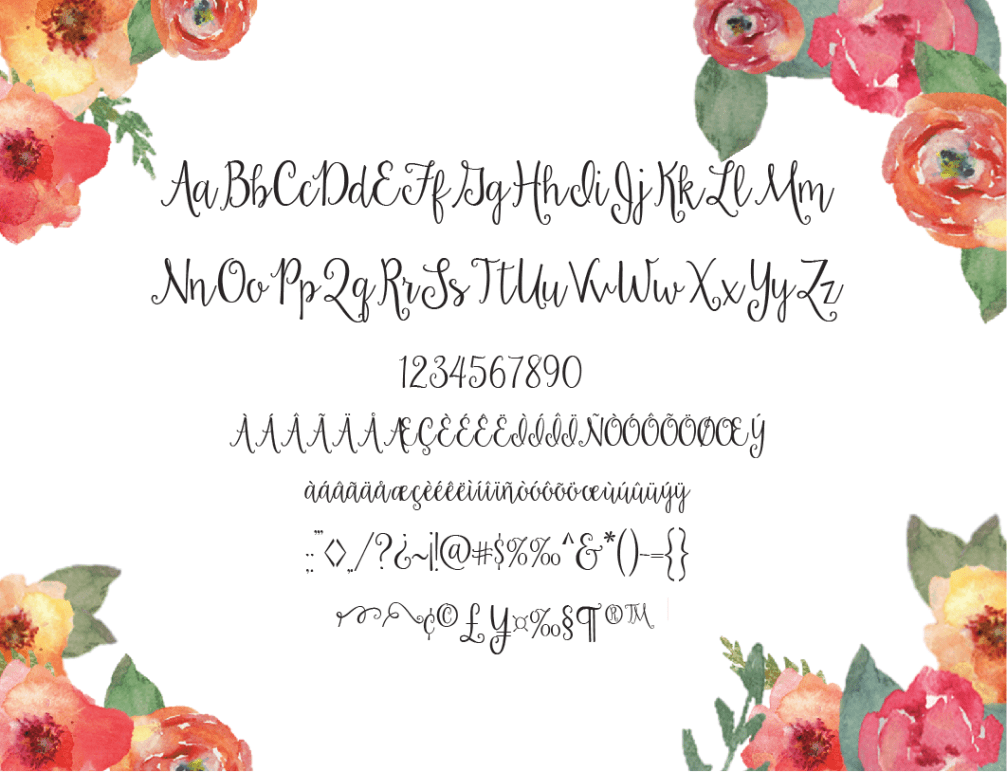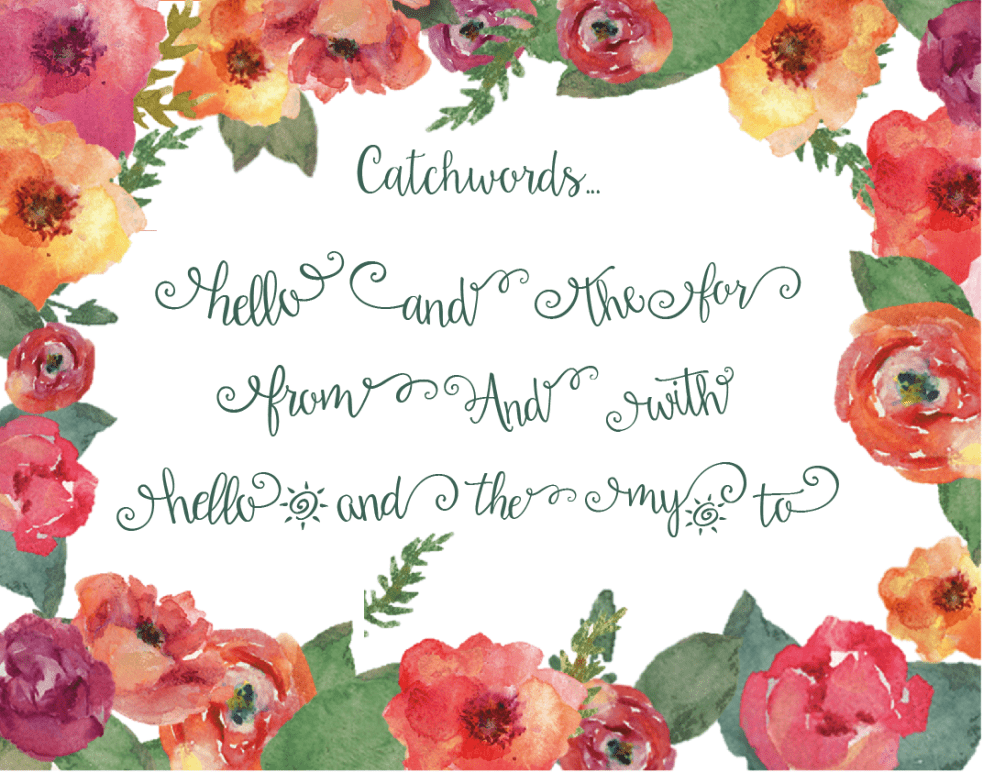
Hello Sunshine
Buy NowHello Sunshine is a new bright and sunny Script. Hand-drawn letters are both elegant and funky. Contains 2 terminal ornaments to add on to any lowercase letter to finish off your word or phrase with an end character swirl. No need for an opentype panel. Terminal ornaments are on the keyboard! Create an open type style in the most basic programs.